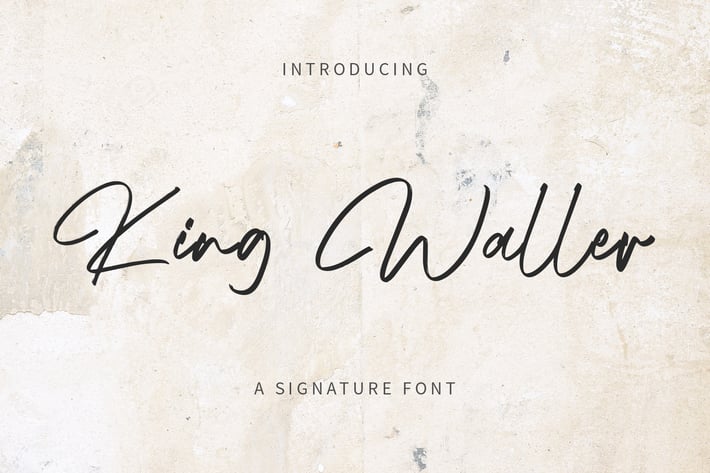
King Waller - Signature Font
King Waller is a simple signature handwritten font. Fall in love with its incredibly versatile style and use it to create beautiful designs!
Highlight :
- Basic Latin A-Z and a-z
- Numbers
- Punctions
- Multilinguals